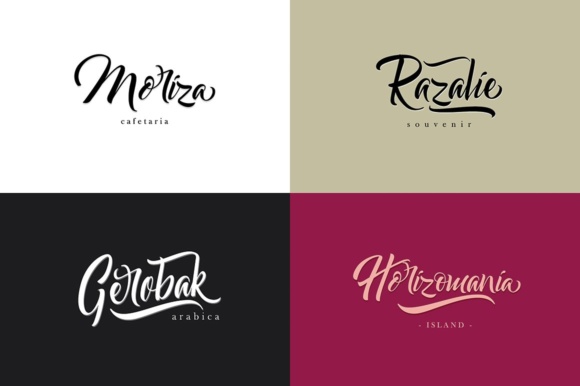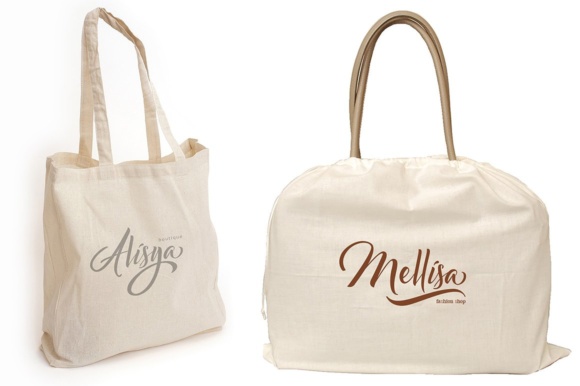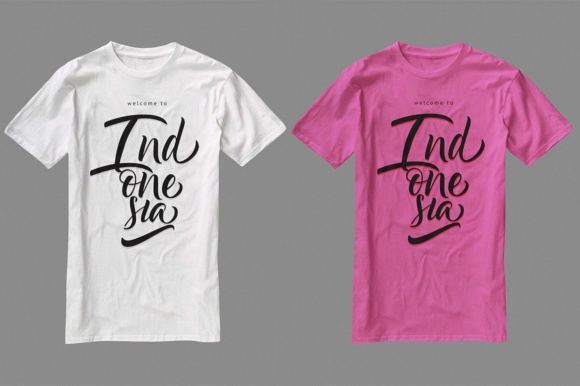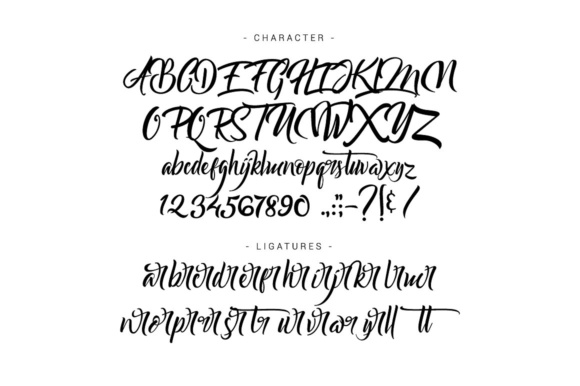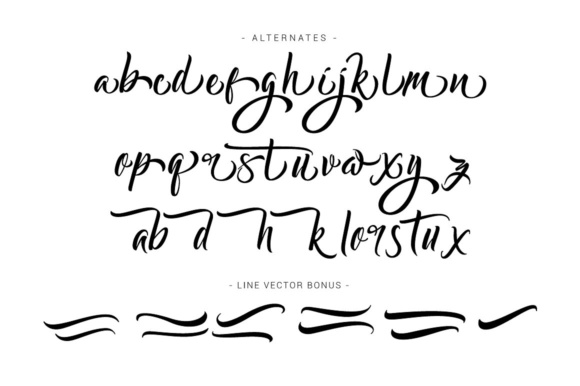
Bareken Font: Elevate Your Design with Elegance and Sophistication
In the world of typography, a font can make or break a design. It’s the perfect blend of form and function, where aesthetics meet readability. For designers and crafters looking to add a touch of elegance and uniqueness to their projects, the Bareken Font is an excellent choice. This stunning typeface boasts beautiful beginning and end swashes that instantly elevate your design, setting it apart from the rest.
The Unique Charm of Bareken Font
The Bareken Font is an elegant, yet striking typeface that commands attention without overpowering the content. Its design is characterized by exquisite swashes at the beginning and end of each letter, which add a flourish of sophistication and style. These swashes are not just decorative elements; they are an integral part of the font’s design, seamlessly blending with the letters to create a harmonious and visually appealing effect.
Key Features of Bareken Font
- Elegant Swashes: The hallmark of the Bareken Font is its beautiful swashes. These are meticulously designed to add an extra layer of elegance to your designs, making them perfect for projects that require a touch of luxury and refinement.
- Versatility: The Bareken Font is incredibly versatile, making it suitable for a wide range of design projects. Whether you’re working on a logo, a wedding invitation, a branding project, or a digital interface, this font can adapt to various design needs with ease.
- Readability: Despite its decorative nature, the Bareken Font maintains a high level of readability. This makes it an excellent choice for body text, headings, and any other content where clarity is paramount.
- Unique Look: The combination of classic design elements with modern flair gives the Bareken Font a unique look that can instantly transform your designs. The swashes provide a customizable element that allows designers to play with different styles and effects.
Applications of Bareken Font
The Bareken Font’s versatility means it can be used in a multitude of design projects. Here are some of the most popular applications:
- Branding and Logos: Create a lasting impression with a logo that exudes elegance and sophistication. The Bareken Font’s unique swashes can be customized to fit your brand’s identity.
- Wedding and Event Invitations: Add a touch of luxury to your wedding or event invitations. The Bareken Font’s elegant design makes it perfect for formal events.
- Packaging Design: Stand out on the shelves with packaging that features the Bareken Font. Its unique look can help your product design to be more memorable.
- Digital Design: From mobile apps to website headers, the Bareken Font can add a professional and stylish touch to your digital projects.
Tips for Using Bareken Font
To get the most out of the Bareken Font, consider the following tips:
- Experiment with Swashes: Don’t be afraid to play around with the swashes. You can choose to use them, adjust their size, or even combine them in creative ways.
- Mix and Match: Combine the Bareken Font with other fonts to create a unique contrast. Pairing it with a simple sans-serif font can highlight its elegant features.
- Consider the Context: Think about the context in which your design will be used. Adjust the font size, color, and style to ensure it fits well with the overall design and message.
| Font Name | Bareken Font |
| Author | Thirtypath |
The Bareken Font is a powerful tool for designers and crafters looking to add a touch of elegance and uniqueness to their projects. Its beautiful beginning and end swashes, combined with its versatility and readability, make it an excellent choice for a wide range of design applications. By incorporating the Bareken Font into your design toolkit, you can create stunning projects that stand out and leave a lasting impression.
Whether you’re a seasoned designer or a crafting enthusiast, the Bareken Font is sure to inspire your creativity and help you achieve your design goals. So, why wait? Explore the possibilities of the Bareken Font today and discover how it can transform your designs.